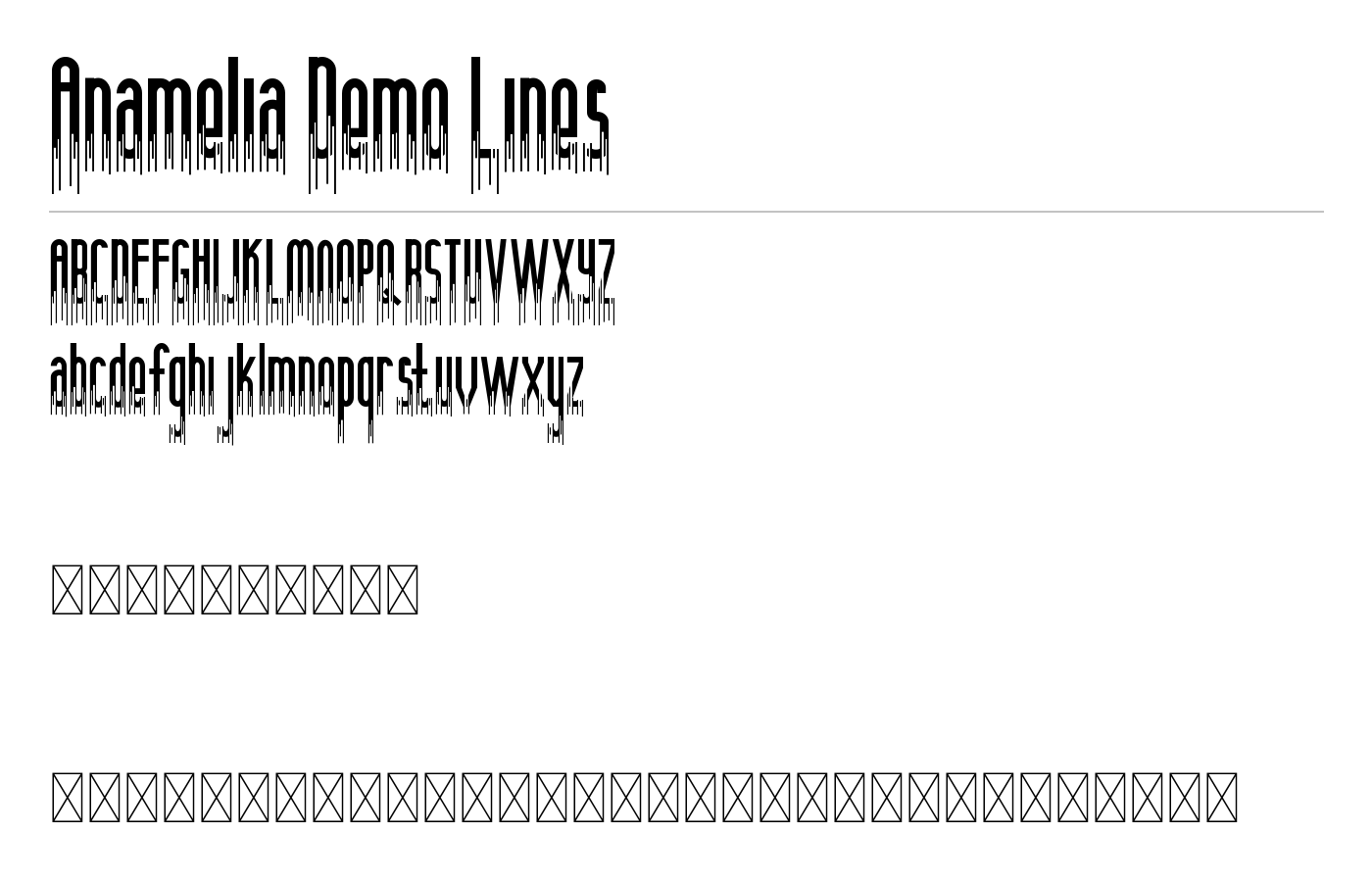
Anamelia Demo is a tall, condensed sans-serif font with a striking modern and edgy style, featuring sharp vertical extensions that create a dripping, fragmented effect. Its high contrast between thick upper strokes and elongated thinner lines adds a unique, dramatic flair, making it perfect for bold headlines, posters, and creative branding that demands attention. This font communicates a futuristic and experimental vibe, ideal for artistic or avant-garde design projects.
Anamelia Demo Font
About Anamelia Demo Font